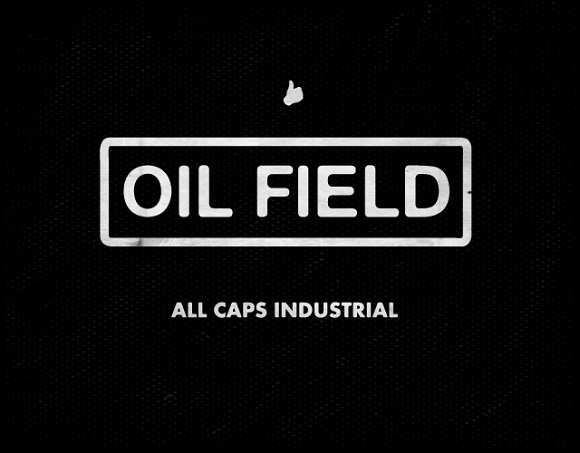
Introduction to Oil Field Font
Have you ever been working on a creative project and struggling to find the perfect font to pair with your script text? I know I have. It’s like searching for a needle in a haystack, until one day, I stumbled upon the Oil Field Font. This simple yet bold font is a game-changer for designers looking to create high-quality designs with authority.
As a designer, I’ve had the pleasure of testing the Oil Field Font in real-world applications, and I can confidently say it’s a valuable addition to any design resource. Not only is it free to download, but its transparent background and clean design make it a versatile tool for any creative project. Whether you’re working on a logo, brochure, or website, the Oil Field Font is sure to get your message across with clarity and style.
So, what makes the Oil Field Font so special? In this article, we’ll dive into the details of this impressive font and explore its potential as a design resource.
Key Features of Oil Field Font
- High-quality design resource ideal for creative projects, including oil and gas industry themes.
- Features a unique, distressed texture that adds a vintage touch to any design, perfect for creating a rugged, industrial look.
- Designed with high resolution in mind, making it suitable for use in large-scale applications, such as billboards and signage.
Honest Review: Oil Field Font
I recently stumbled upon the Oil Field Font, and I must say it’s a great addition to any design resource collection. As a designer, I’m always on the lookout for high-quality fonts that can elevate a creative project. The Oil Field Font definitely delivers.
Here are some things that work well:
- ✨ Unique and rugged design aesthetic that’s perfect for industrial or outdoor-themed projects.
However, I do have a few minor complaints:
- ⚠️ Limited character set, which may not be suitable for longer texts or complex layouts.
Overall, I’m impressed with the Oil Field Font’s potential and would definitely recommend it to designers working on creative projects that require a rugged, industrial feel. Just be aware of its limitations, and you’ll be all set for a great design experience.
Tips for Getting the Most Out of Oil Field Font
For the best results, use Oil Field Font with a transparent background to create a sense of depth and dimension. You can also experiment with different font sizes and styles to create a unique and eye-catching design.
Oil Field Font is commonly used in design projects that require a rugged, industrial feel, such as oil and gas company logos, construction company brochures, and outdoor gear packaging. You can also use the font in creative projects, such as photography and videography, to add a touch of industrial chic.